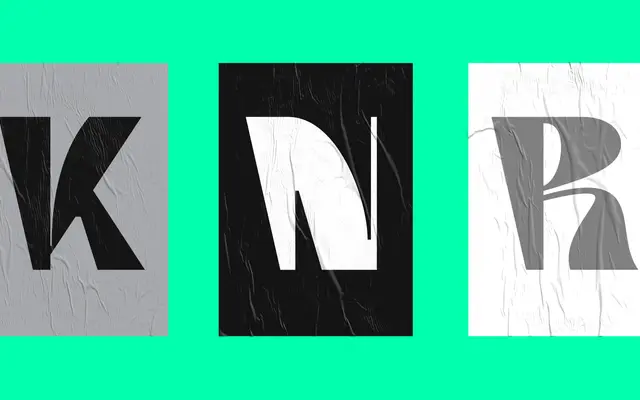
Boring Sans
Zetafonts · Cosimo Lorenzo Pancini · 2020
A variable sans-serif by Cosimo Lorenzo Pancini built across three subfamilies that range from a neutral text workhorse to a high-contrast, inktrap-heavy brutalist extreme.
Designed by Cosimo Lorenzo Pancini and released in 2020, the family uses two variable axes, weight and weirdness, to map a continuous range from the restrained proportions of the A subfamily through the slanted strokes and deep inktraps of B to the deliberately bombastic letterforms of C. Each subfamily runs across five weights with matching italics, totalling 30 styles, with two variable font files available in the full package. The extended Latin glyph set covers 204 languages, and several stylistic sets offer alternate forms for further customisation.
A sans-serif family spanning neutral workhorse proportions through to exaggerated brutalist letterforms, with variable axes for weight and weirdness placing it firmly in the grotesque tradition but with expressive extensions.